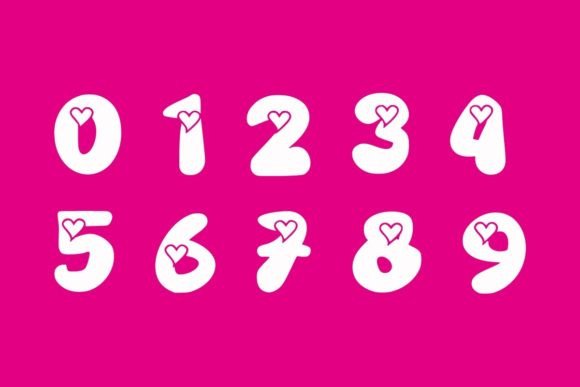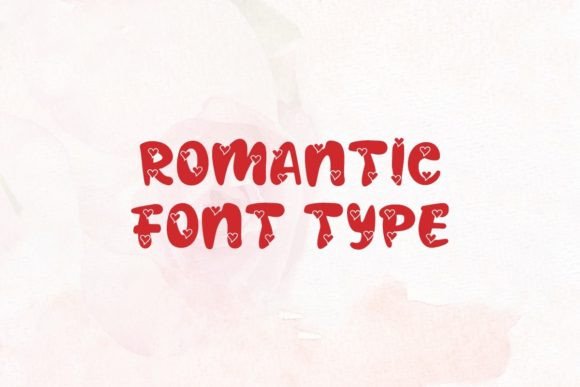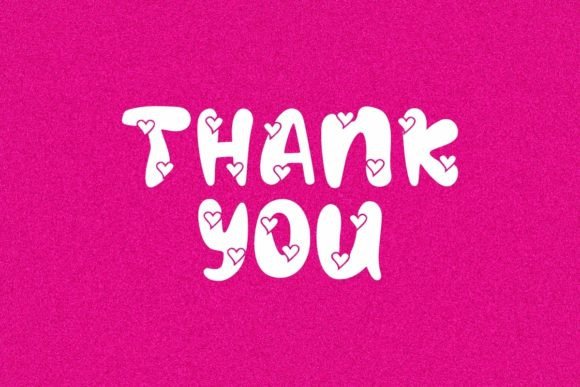
Introduction to Rungkad Font
Do you remember that moment when you stumbled upon a font that perfectly captured the essence of your creative project? For many designers, that moment is what makes all the difference between a good design and a great one. I still recall the thrill of discovering the Rungkad Font, a high-quality typography that exudes playful, loving, and bouncy vibes. Its versatility has made it a staple in my design arsenal, and I’m excited to share its story with you.
Whether you’re working on a digital design, crafting a greeting card, or creating a presentation, the Rungkad Font has the potential to elevate your project to the next level. With its transparent background and free download option, this design resource is a treasure trove for creatives looking to add a touch of whimsy to their work.
Key Features of Rungkad Font
- High-quality, intricate design with a transparent background, perfect for creative projects and design resources.
- Unique, hand-drawn style that adds a touch of elegance to any creative project.
- Perfect for designers, artists, and creatives working on a wide range of projects, from branding and advertising to editorial and publishing.
Honest Review: Rungkad Font
I recently had the chance to work with the Rungkad Font, and I must say it’s been a game-changer for my creative projects. The high quality of this font is undeniable, and I appreciate how transparent the background is, making it easy to work with. Plus, it’s completely free to download, which is always a bonus!
Here are some things that work well: ✨
- High-quality design: The Rungkad Font looks great on any device, from small screens to large prints.
- Transparent background: This makes it easy to layer or combine with other design elements.
However, there are some limitations to keep in mind: ⚠️
- Limited language support: The Rungkad Font only includes support for a limited number of languages.
- No bold or italic options: This may limit your options for creating emphasis in your design.
Overall, I’m really impressed with the Rungkad Font, and I think it’s a great addition to any designer’s toolkit. With its high-quality design and transparent background, it’s a versatile and useful resource for any creative project.
Tips for Getting the Most Out of Rungkad Font
Use Rungkad Font on a high quality transparent background to make your design stand out.
Use Rungkad Font as a design resource to add a touch of elegance to your design.
Rungkad Font is ideal for use in logos, business cards, and other marketing materials.
Use Rungkad Font to add a touch of sophistication to your website or blog.
Rungkad Font is also great for use in presentations, reports, and other business documents.
Alternatives to Rungkad Font
Pacifico is a beautiful high-quality script font that can add a touch of elegance to any creative project. It is ideal for use in designs that require a sophisticated and refined look. Pacifico is a free download and can be used for both personal and commercial projects.
Compared to Rungkad Font, Pacifico has a more elegant and refined feel, making it suitable for high-end designs. However, it may not have the same level of playfulness as Rungkad Font.
Great Vibes is a modern and stylish script font that is perfect for use in designs that require a sense of energy and creativity. It is a free download and can be used for both personal and commercial projects. Great Vibes is ideal for use in designs with a transparent background, allowing the font to take center stage.